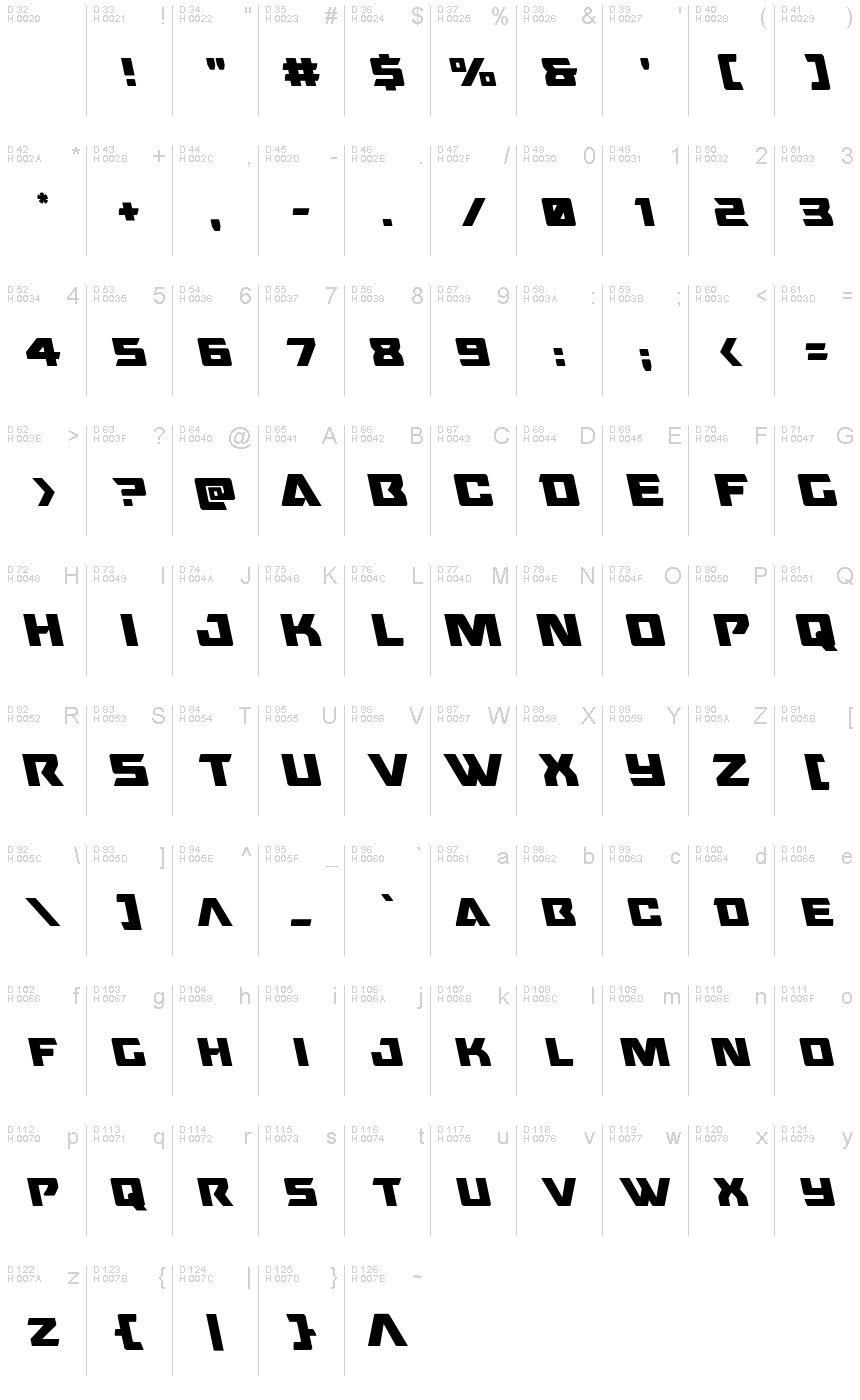
Oceanic Drift Semi-Leftalic
Oceanic Drift Semi-Leftalic, a captivating font from the Oceanic Drift family designed by Iconian Fonts, exudes a futuristic allure with its bold, expanded silhouette. This display typeface showcases a distinctive semi-left-leaning structure, adding a dynamic and eye-catching flair to any design. Its well-balanced letterforms and striking aesthetic evoke a sense of modernism and technological prowess, making it an intriguing choice for projects seeking a bold, attention-grabbing visual presence.
Oceanic Drift Semi-Leftalic's versatility shines through, lending itself seamlessly to a variety of design applications. From eye-catching headlines and impactful branding to captivating digital interfaces and immersive multimedia experiences, this font's strong personality and remarkable legibility make it a compelling option for designers seeking to create a memorable visual impact.